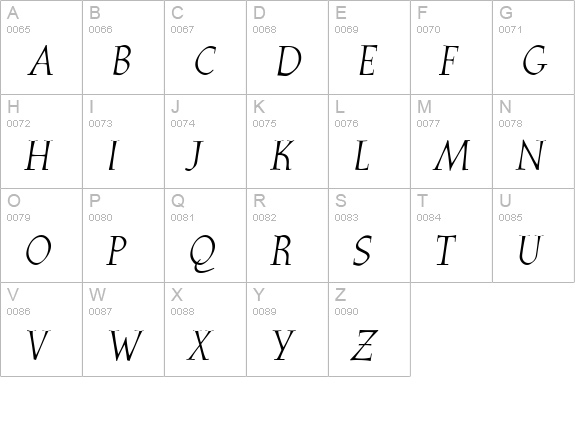
CgAthenaeumItalic font exudes a sense of elegance and sophistication with its graceful italic style. This font is perfect for adding a touch of refinement to any project, whether it be invitations, branding, or editorial designs. The delicate curves and fine lines of CgAthenaeumItalic create a timeless and classic look that is sure to captivate your audience. Best of all, CgAthenaeumItalic is available for free download at FontsMarket.com. Take advantage of this opportunity to enhance your designs with this beautiful and versatile font. Add a touch of class to your projects with CgAthenaeumItalic and elevate your design to the next level.